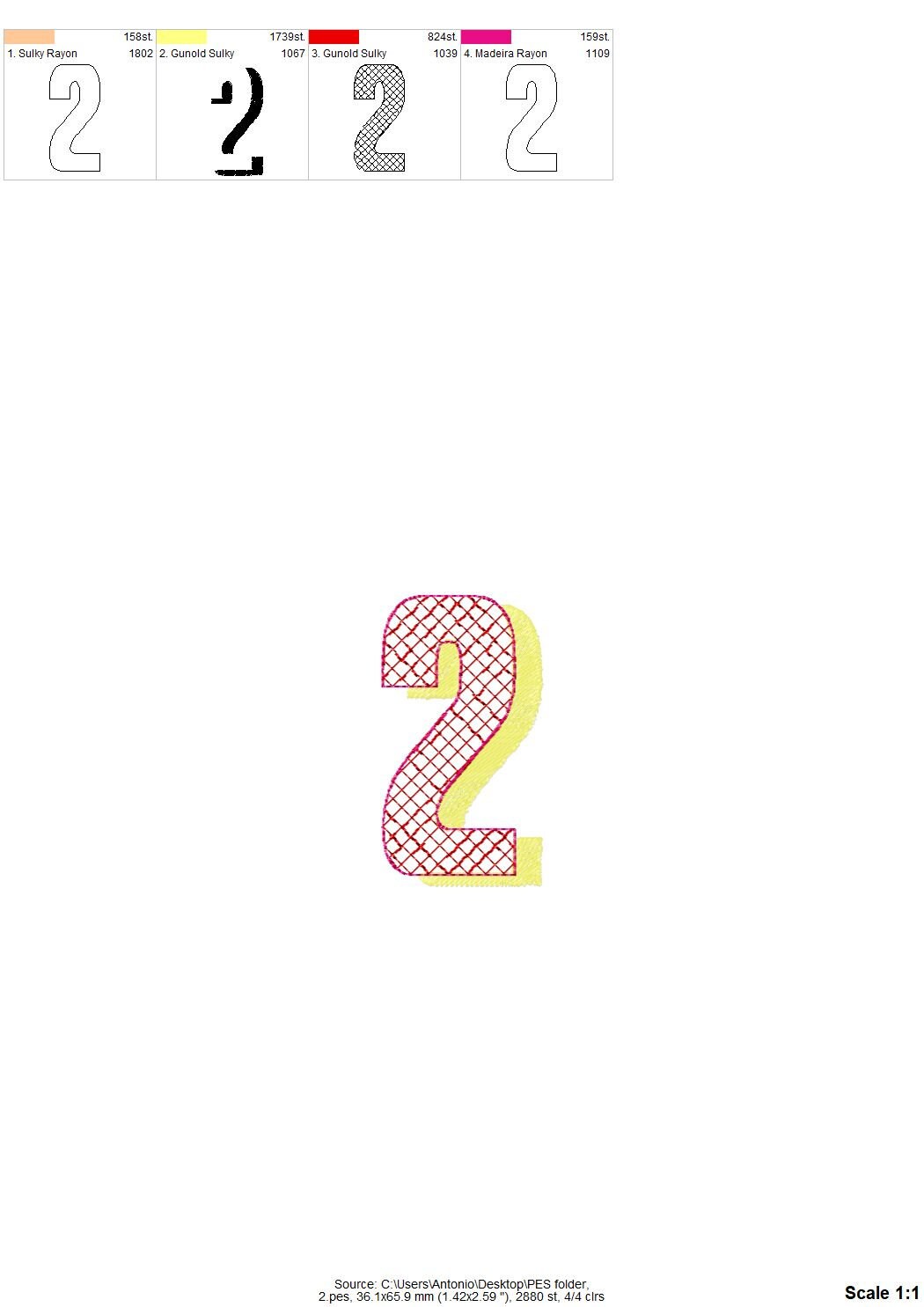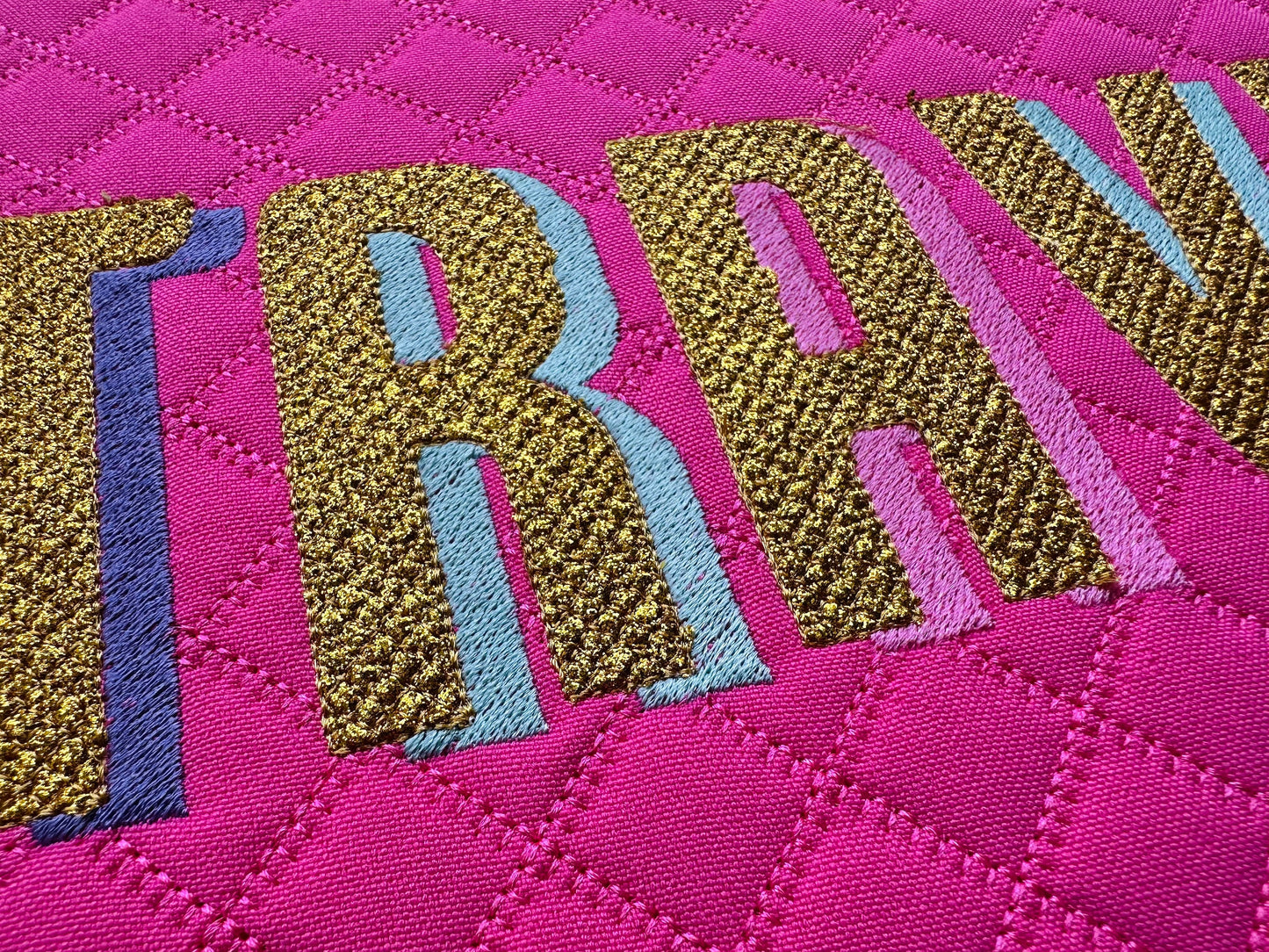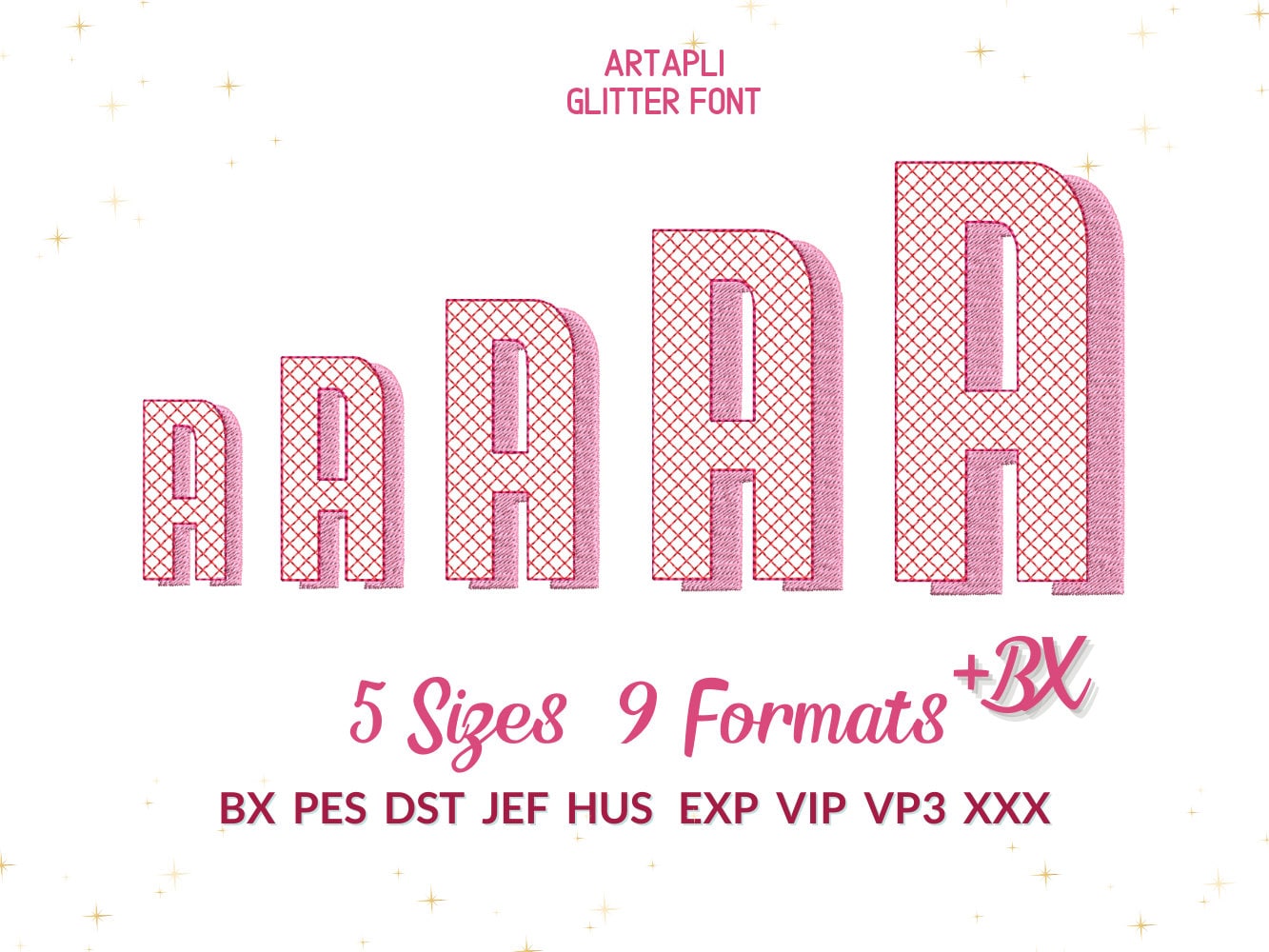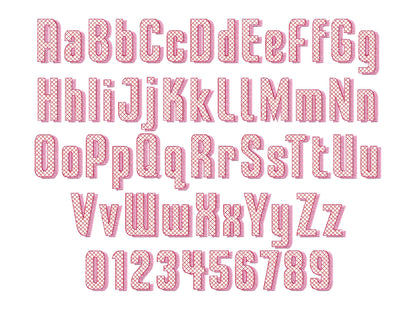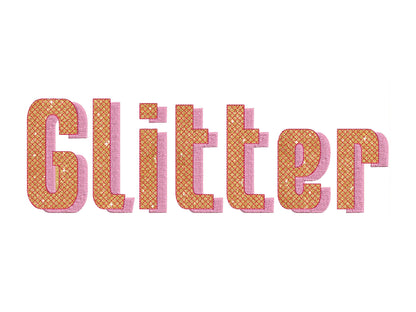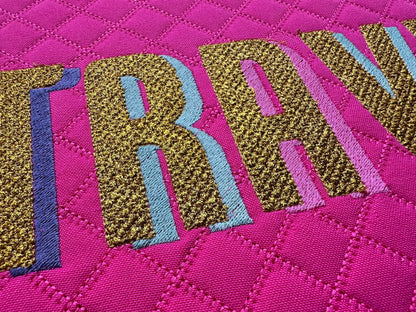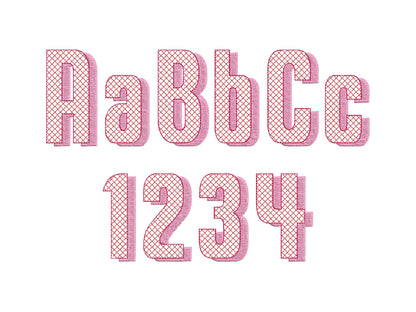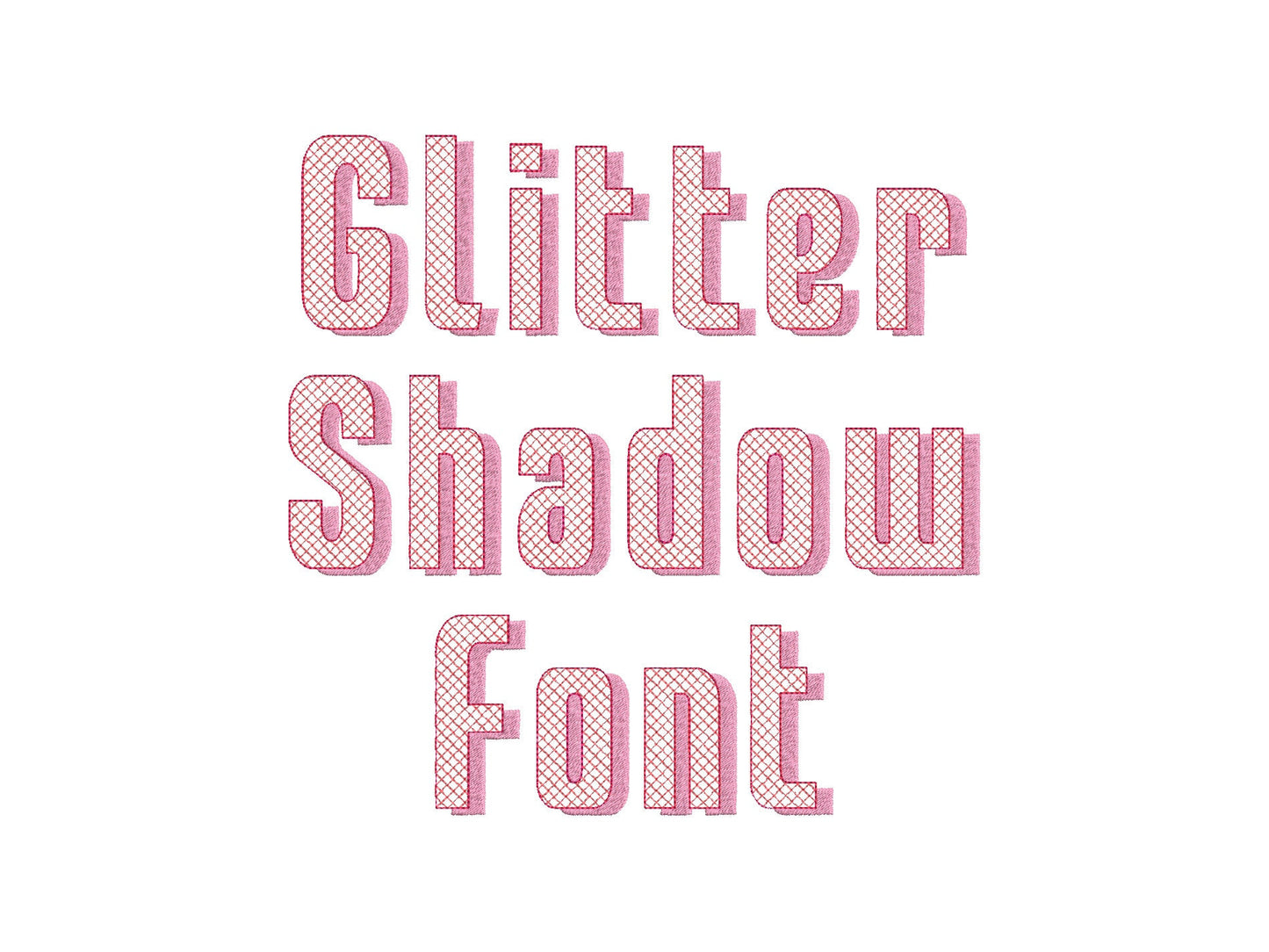
Or click to open the linkA glitter vinyl font with a shadow, for sparkly names and words on shirts, sweatshirts and bags.
Stitch the letters over glitter heat transfer vinyl, then press it on with a heat press or iron. Uppercase and lowercase letters and numbers in five sizes: 1.8, 2.3, 2.8, 3.6 and 4.2 inches.